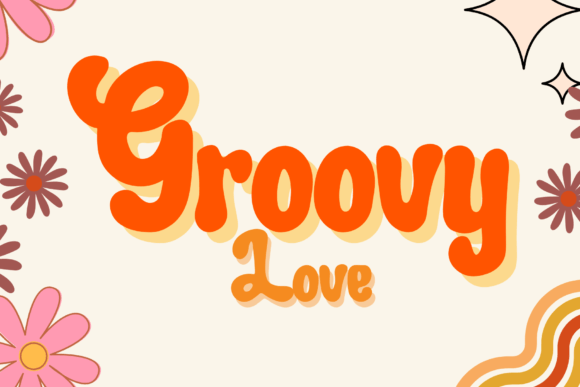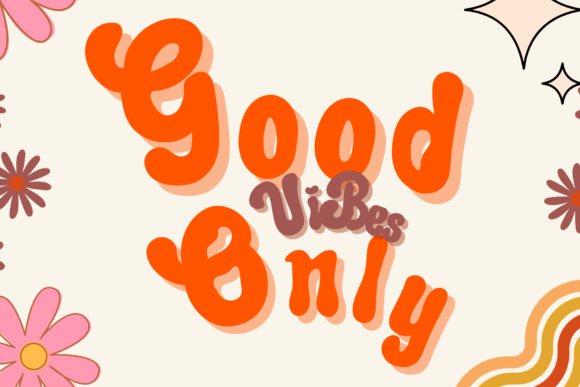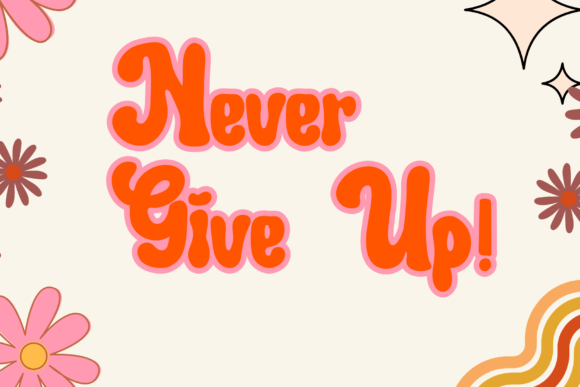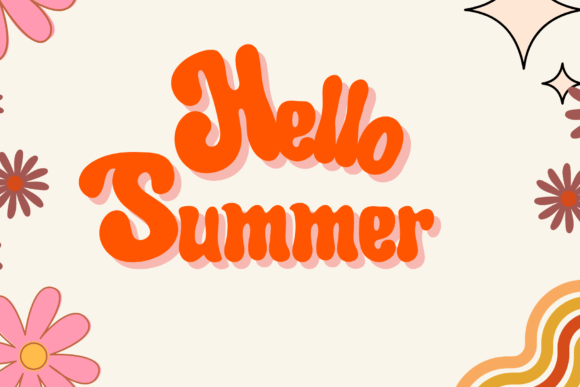
Groovy Love Font
About the Groovy Love Font
The wait is over! The incredible Groovy Love Font is now available for your design toolkit. Groovy Love is a retro-inspired script display font that exudes an air of vintage cool. Its flowing, cursive letters are reminiscent of the psychedelic 60s and 70s. The font is perfect for designs that need a fun and playful touch, such as album covers, invitations, and posters.
Groovy Love’s playful energy makes it ideal for headlines, logos for vintage-inspired brands, posters, and packaging for products targeting a younger demographic. It shines in short, impactful statements but isn’t suitable for body text or UI elements where readability is paramount; its cursive nature hinders quick comprehension in extended passages.
Pairing Groovy Love with a clean sans-serif like Futura or a geometric sans-serif like Montserrat creates a balanced contrast, grounding its retro charm. For a more vintage feel, consider pairing it with a serif like Playfair Display. Avoid pairing it with other highly decorative script fonts as this would create visual clutter.
The font’s overall personality is best described as bold and playful, conveying a sense of fun and nostalgia without being overly childish or kitschy.
Groovy Love Font Usage Examples
Groovy Love Font Example